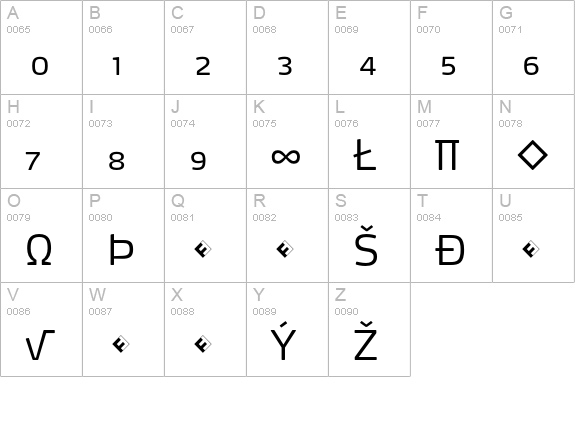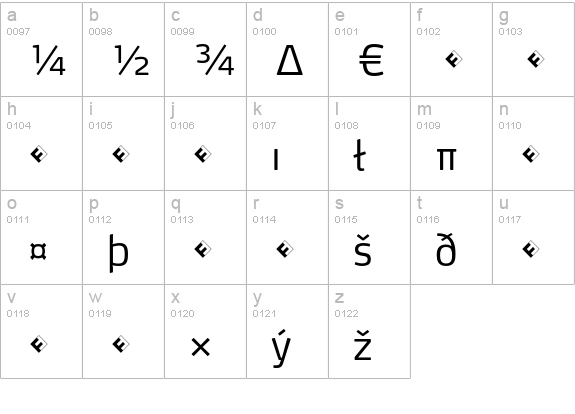
Max-LightExpert Font Details
Introducing Max-LightExpert font, a sleek and sophisticated typeface perfect for adding a touch of elegance to your designs. This font boasts a refined and modern look that is sure to make your text stand out. With its clean lines and graceful curves, Max-LightExpert exudes a sense of style and professionalism. What sets Max-LightExpert apart is its versatility – whether you're working on a website, logo, or print project, this font will elevate your design to the next level. Its light weight and expertly crafted letterforms make it easy to read while maintaining a sense of sophistication. And the best part? Max-LightExpert is completely free to download at FontsMarket.com. So why wait? Give your projects a touch of class with Max-LightExpert font today.